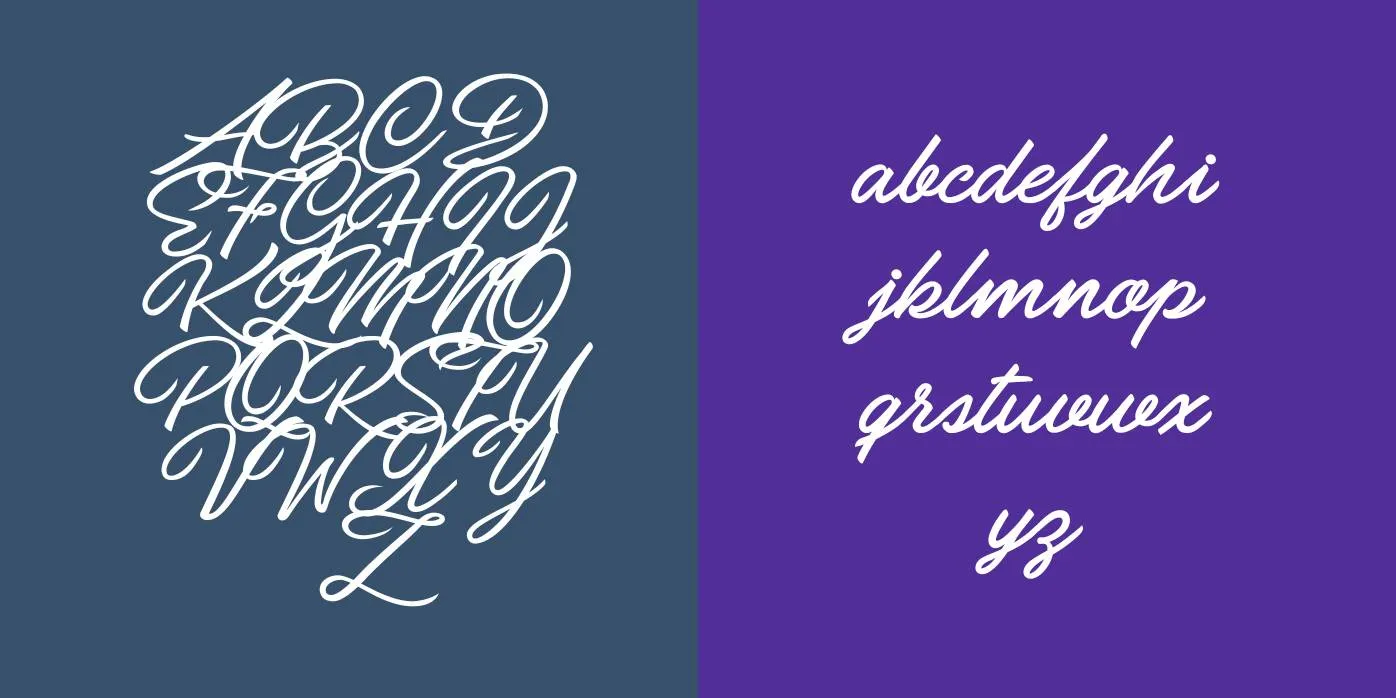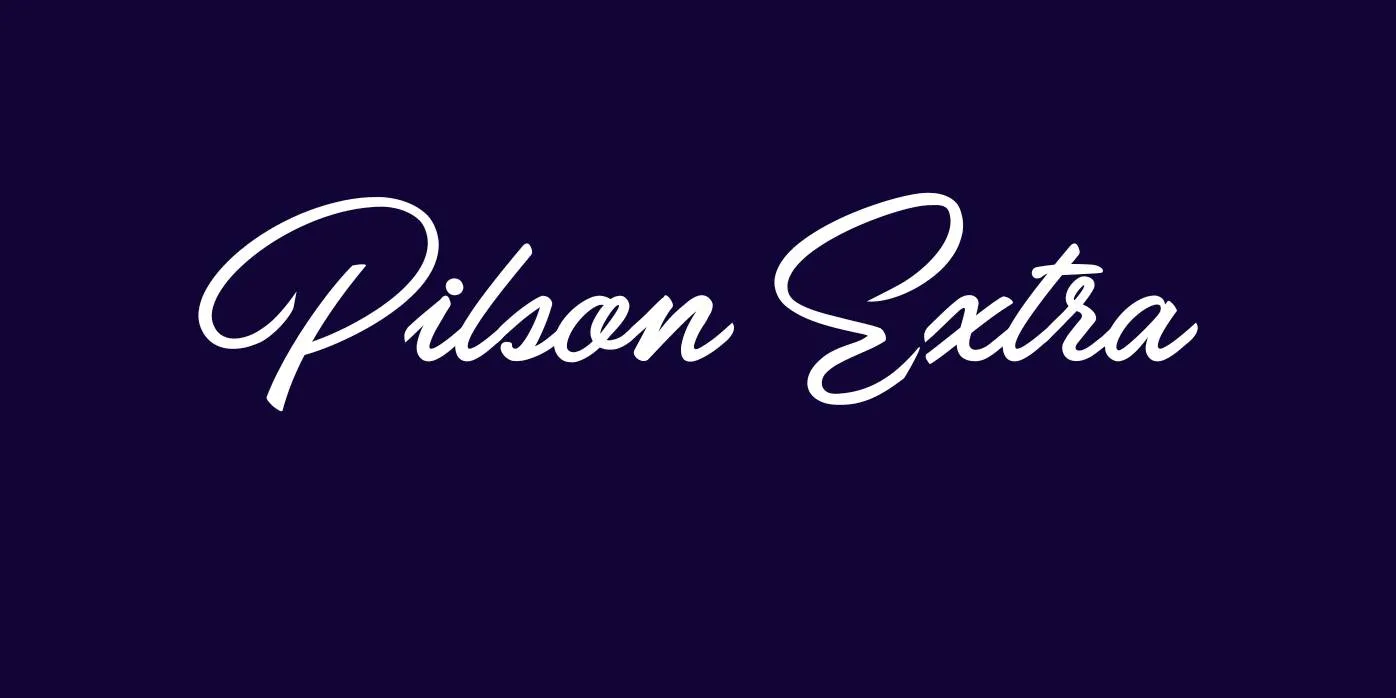
Pilsen Extra Font
We discuss detailed information about the Pilsen Extra font. This is a handwritten font and can make different calligraphy projects and others. It was designed by Billy Argel. It falls under the table version 1.000 It contains 354 characters, 355 glyphs, and 1000 units per Em.
The weight of the font is Semi light and the width of the font is medium normal. The pattern nature of this font is Italic and its pitch is not monospaced. An Online generator tool also supports this font and it can be changed your simple text into a stylish look online without downloading the font. You can also be paired with other fonts like aesthetica font to give an attractive and amazing look to your projects.
You can make very stylish calligraphy using this font. It is suitable for making headers, and for making attractive headlines and brochures. It can also be used for making flyers and banners for any kind of project. You may also use it for making wedding invitations or any other kind of event invitations.